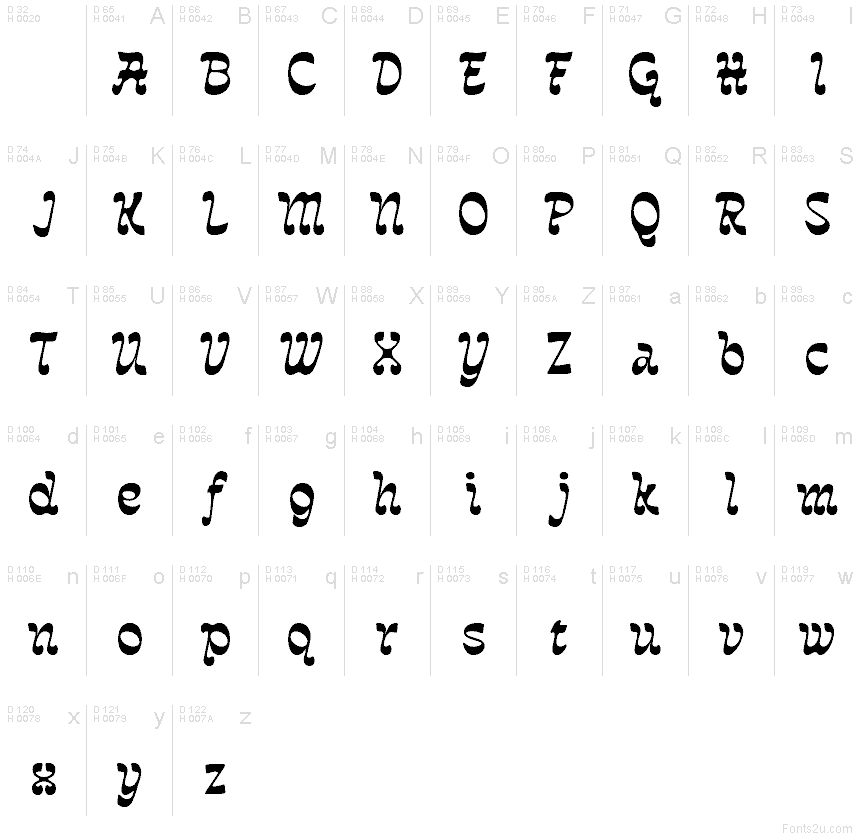
CSFlareDrawn-Regular Demo
CS Flare font designed by Craft Supply Co. is a gorgeous expressive display font which is quite unapologetic in its love for bright presentation and artistic flair. The retro character style of this incredible typeface offers graphic designers iconic vibes, just what they want to transport their audience back to the good old golden times of 80s.
This free display font with a fluid and whimsical characteristic will work magic on all sorts of branding designs, advertisements, wedding invites, social media posts, print publications and web projects – to name only a few things!
CS Flare Drawn Demo